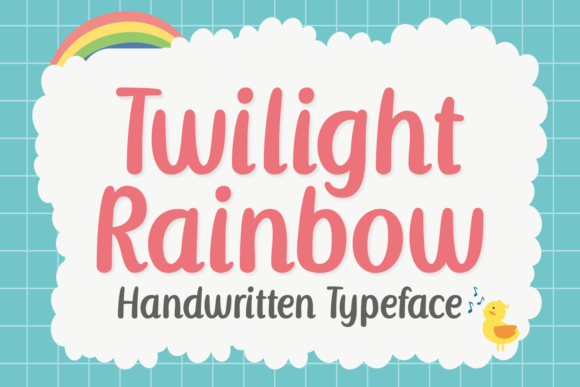
Adorn your designs with the enchanting Twilight Rainbow font, a script typeface that exudes elegance and playfulness. This captivating font is a true gem, meticulously crafted to elevate your creative projects to new heights. Its delicate strokes and graceful curves are reminiscent of a gentle breeze, adding a touch of whimsy and sophistication to your designs.
Whether you're a seasoned designer or just starting your creative journey, Twilight Rainbow is the perfect font to help you make a statement. Its versatility knows no bounds, making it suitable for a wide range of projects. From clean logos and elegant invitations to eye-catching social media posts and website headers, this font will effortlessly add a touch of magic to your creations.
Unleash your imagination and let Twilight Rainbow take you on an artistic adventure. Its clean and adaptable nature makes it the perfect choice for any project that demands a touch of sophistication and charm. Let your designs blossom with the beauty of Twilight Rainbow, and watch as your creations come to life with newfound elegance and grace.
- Exquisitely crafted script font with elegant and playful curves
- Versatile style, suitable for a wide range of design projects
- Perfect for logos, invitations, social media posts, website headers, and more
- Designed to enhance any creation with its captivating charm